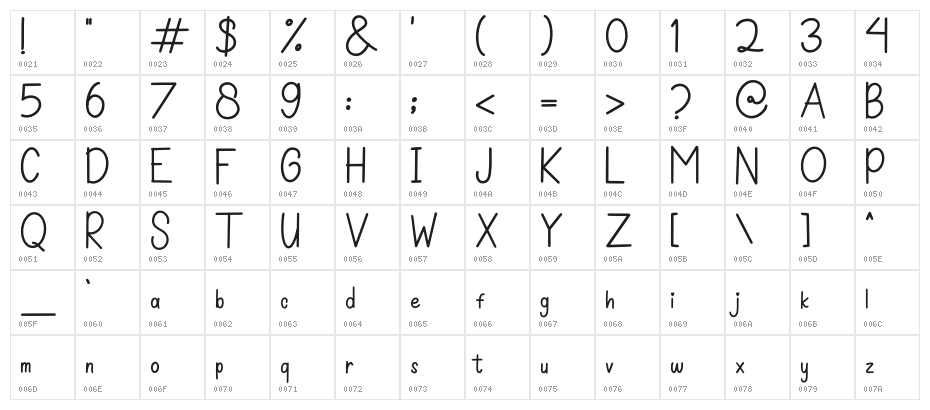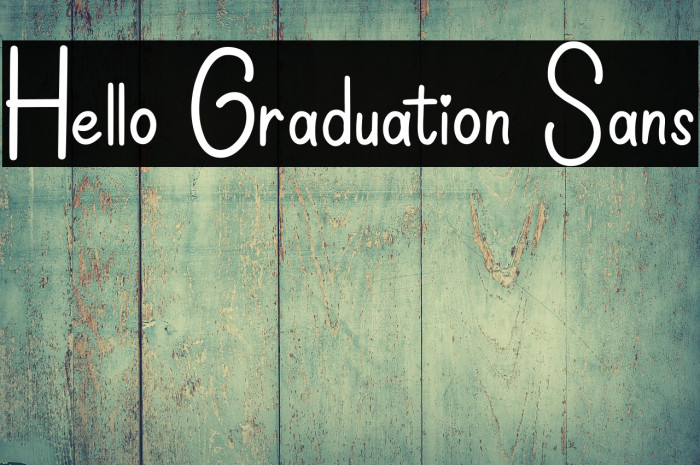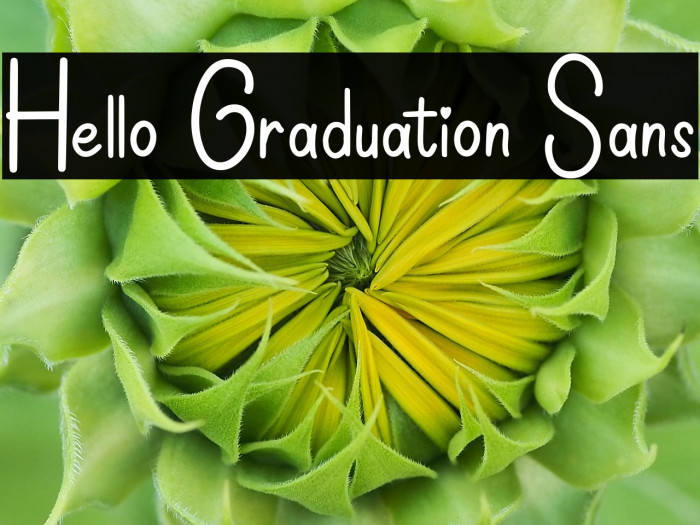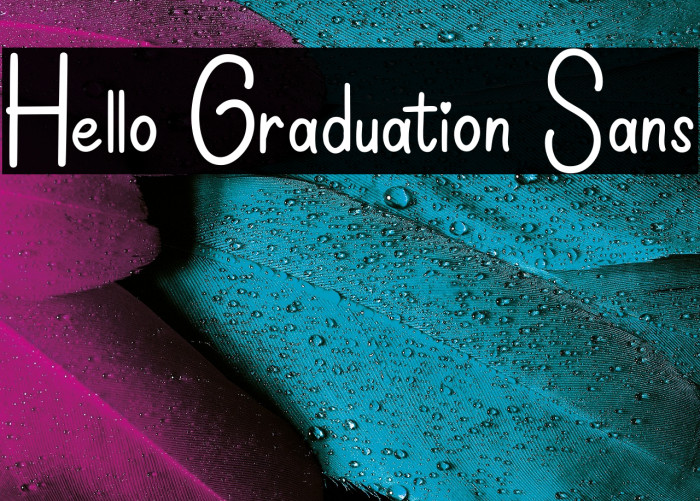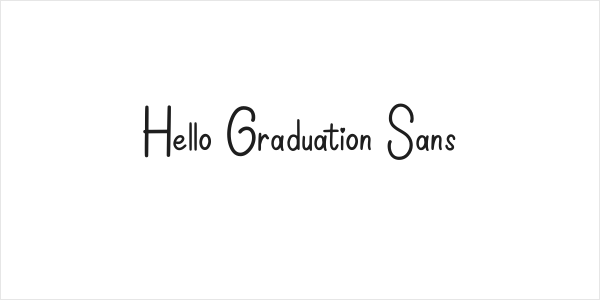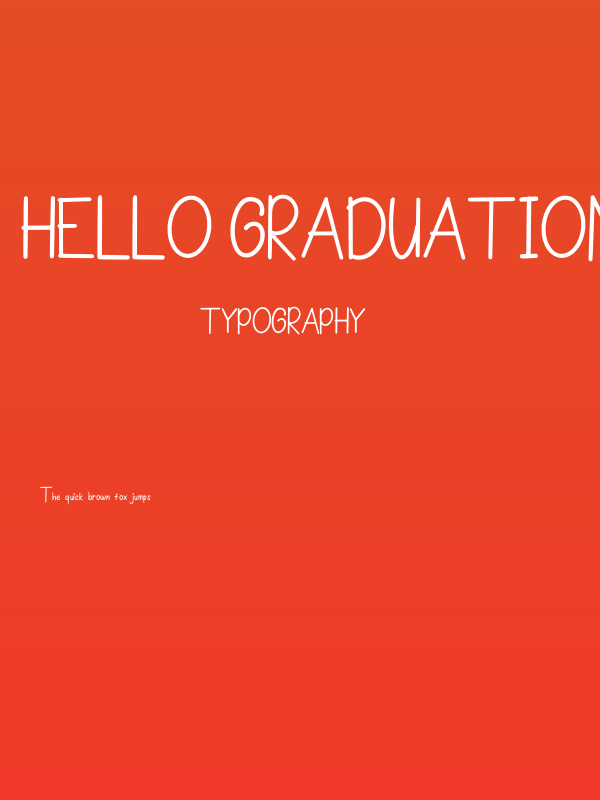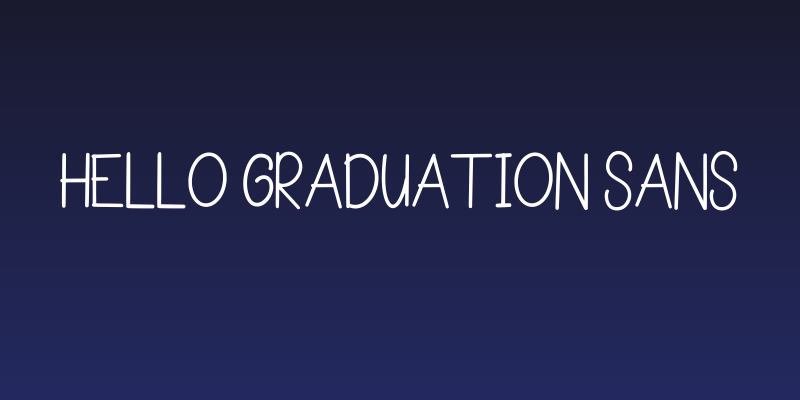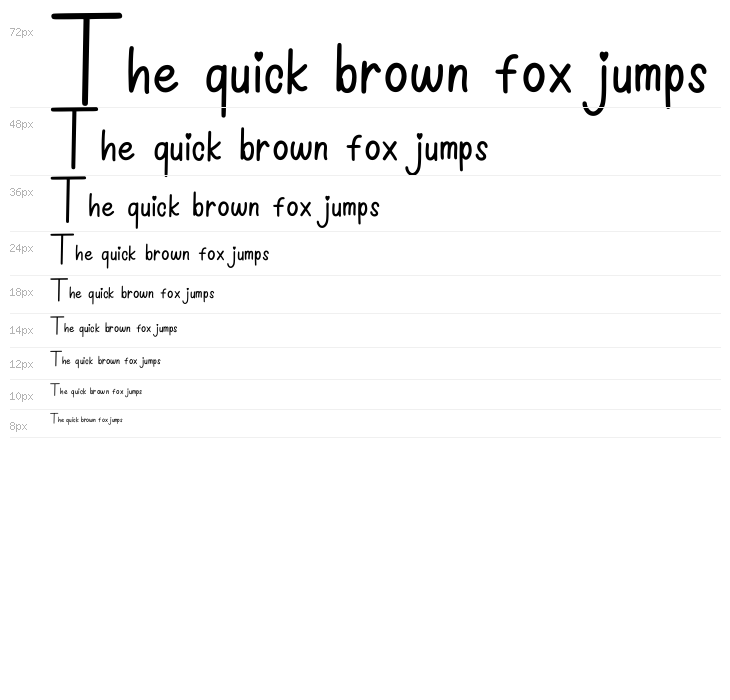
Hello Graduation Sans Font
Hello Graduation Sans Description
A playful, rounded sans-serif font with tall, narrow letterforms and a handwritten, casual appearance. The strokes are even with low contrast, and the characters have a friendly, approachable feel.
| Width | Condensed |
| Overall Style | Playful, Casual, Handwritten |
| Use Case | Headlines, Posters, Children's materials, Informal branding |
| Proposed Projects | Children's books, greeting cards, educational materials, playful branding, posters. |